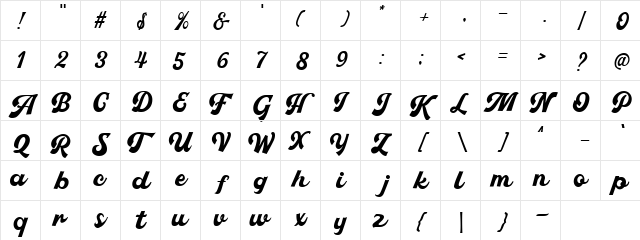
Pachom Script Bold
| Foundry | Faras Dina |
| Designer | Faras Dina |
Design Context for Pachom Script Typeface
Pachom Script brings a calligraphic fluidity to the page — its connecting strokes and expressive curves give it an unmistakably human quality. Its bold stroke weight gives it real presence on the page.